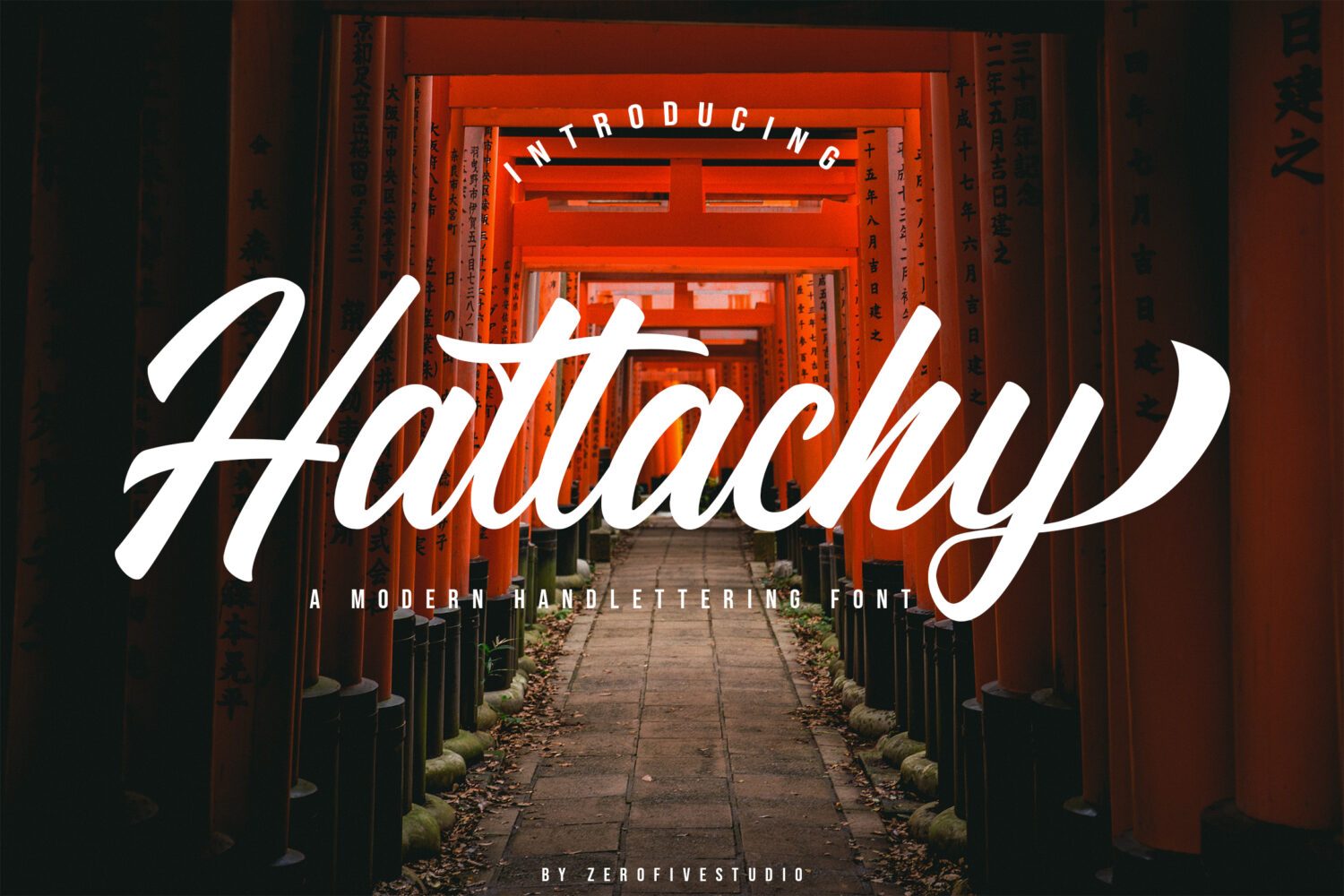
Hattachy Free Font
Hattachy Free Font is perfect for branding, freezing projects, posters, magazines, logos, business cards, wedding designs, social media posts, advertisements, product packaging, product design, labels, photography, watermarks, invitations, stationery, and any project that requires handwritten tastes. This free typeface was designed by a talented Zerofive Studio. If you like it don’t forget to check out the full version.